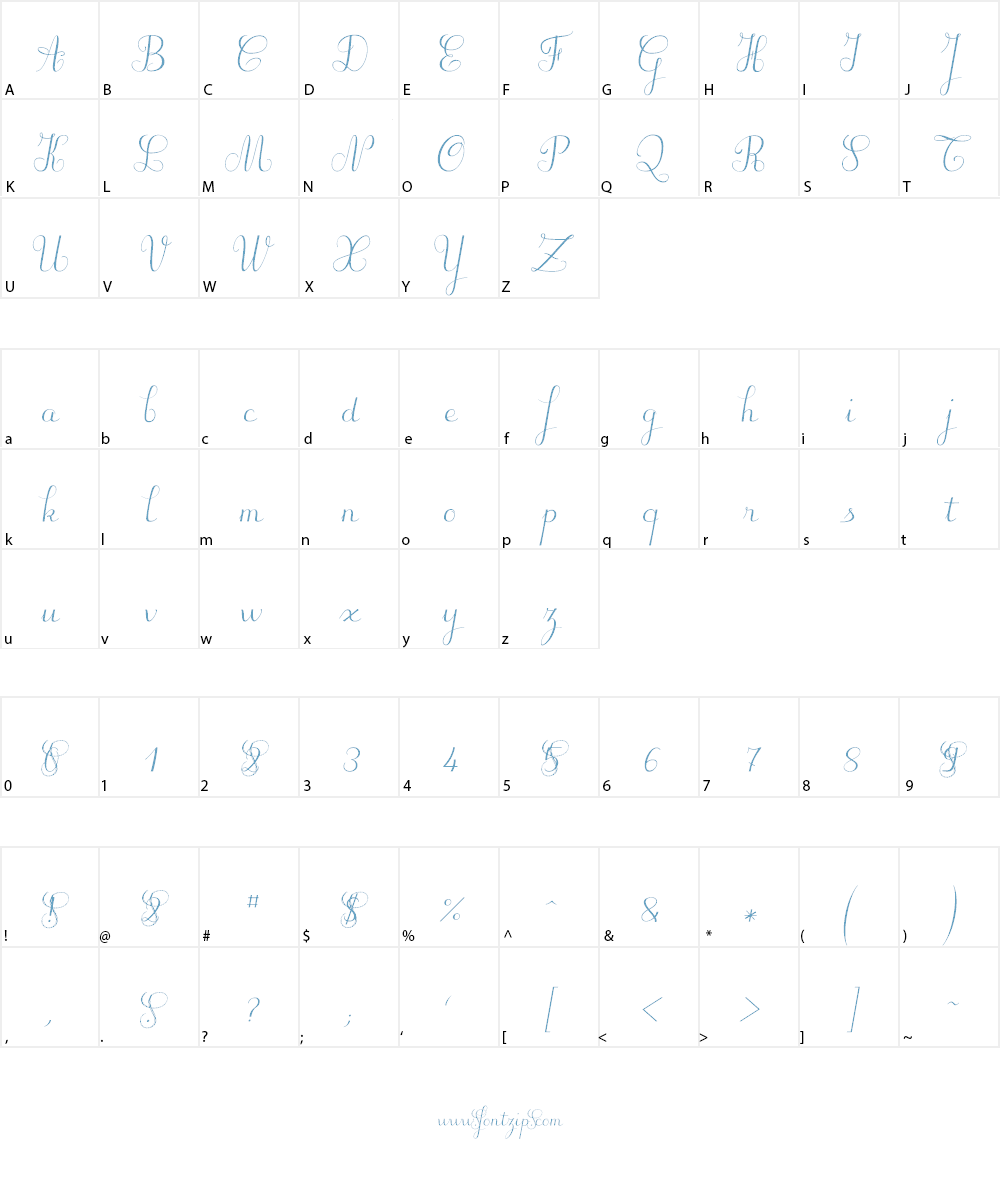
Suilly la Tour is an elegant calligraphic and legible font.
With his three character sets, Suilly la Tour uses OpenType features (liga, init, fina, isol) especially in second set.